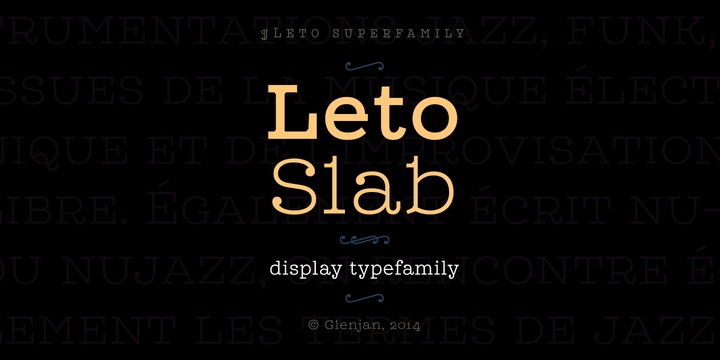
Leto Slab Font
Leto Slab Font is perfect for editorial magazine layouts, modern newspaper headlines, corporate branding projects, architectural firm logos, industrial design materials, contemporary book publishing, tech company presentations, professional portfolio layouts, minimalist poster designs, and sophisticated web typography.
What makes Leto Slab Font so exciting is its exceptional ability to merge contemporary sophistication with timeless slab serif authority, creating letterforms that command attention while maintaining perfect readability across all applications. This versatile typeface strikes an ideal balance between modern minimalism and classic typography traditions, featuring robust serifs that provide stability and strength without sacrificing the clean aesthetics that today's designers demand. The font's refined design elements perfectly embody themes of professionalism, reliability, and forward-thinking innovation, making it an indispensable choice for brands seeking to establish credible yet contemporary visual identities.
The strategic serif construction in Leto Slab Font makes it particularly suitable for professional environments where both readability and visual impact are crucial for success. Its versatile design maintains excellent legibility across digital screens and print media, while preserving the contemporary sophistication that appeals to modern audiences seeking both substance and style.
Design professionals working in corporate and publishing markets appreciate how Leto Slab Font elevates ordinary text into powerful statements of modern authority. The typeface's comprehensive character set includes international language support and professional typographic features that enhance the overall contemporary atmosphere of any design project.
For creative professionals serving corporate clients, publishing houses, and tech companies, Leto Slab Font provides the perfect foundation for establishing memorable visual identities that capture the essential balance between traditional reliability and modern innovation that defines successful contemporary brands.